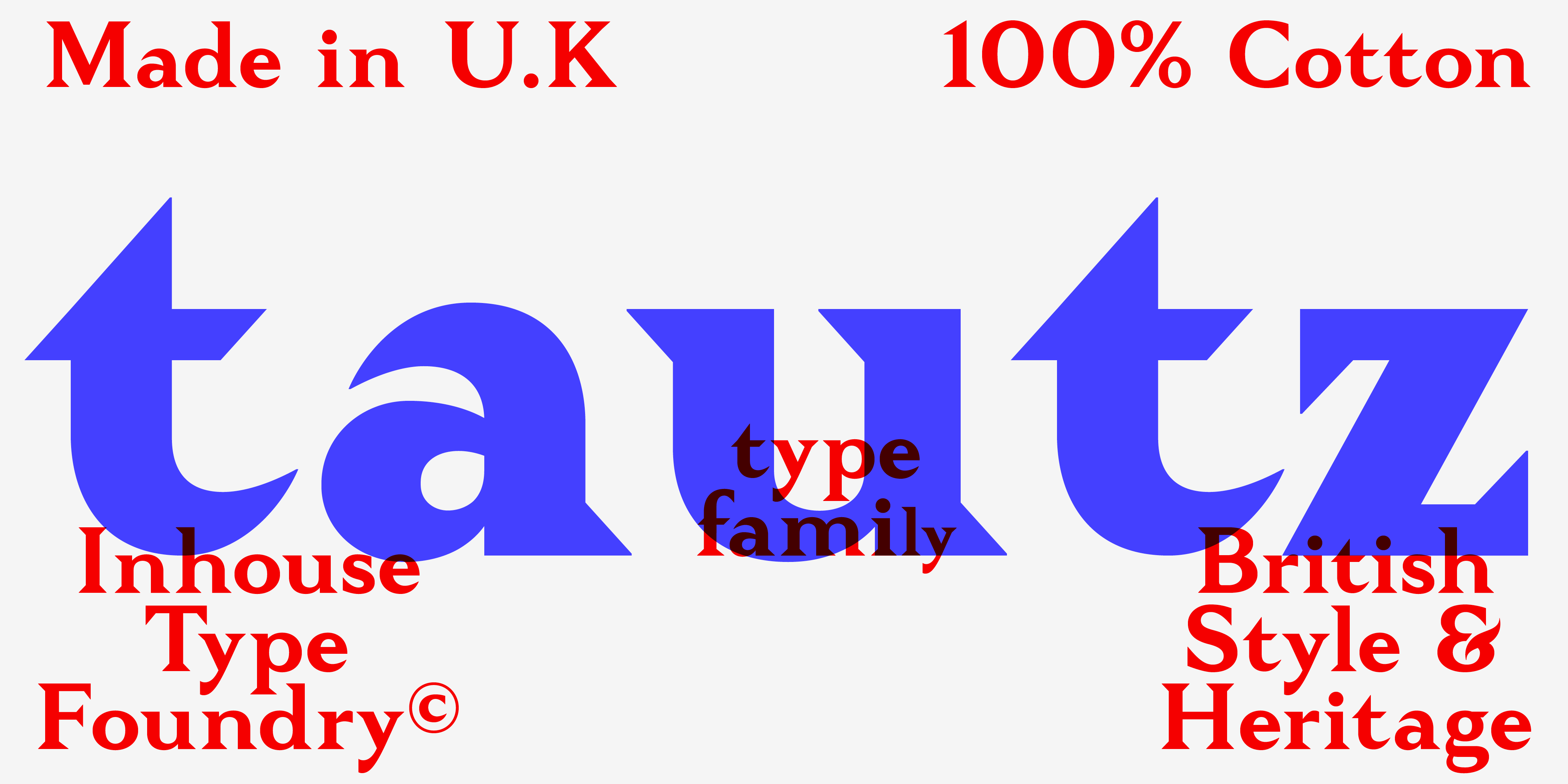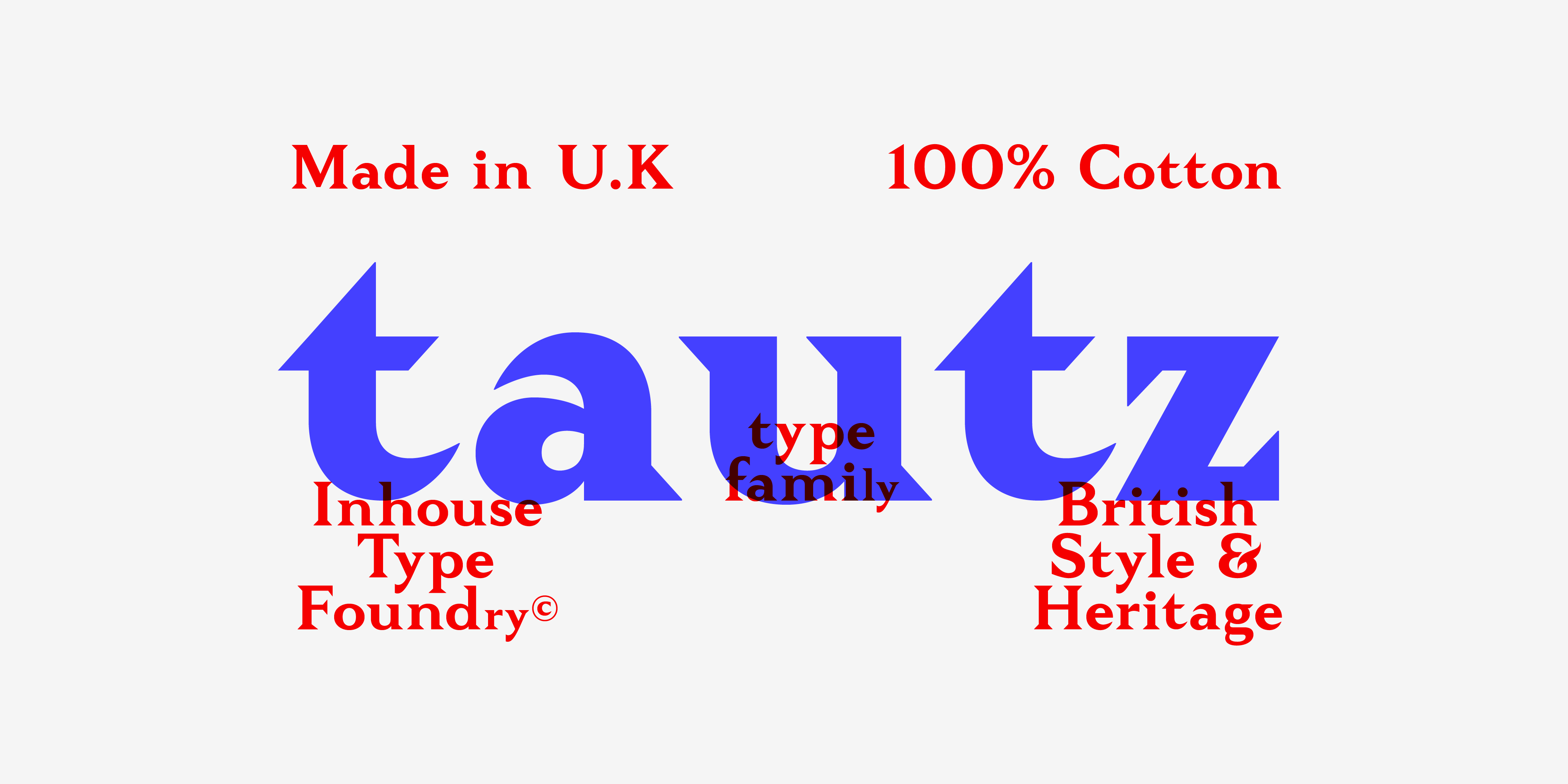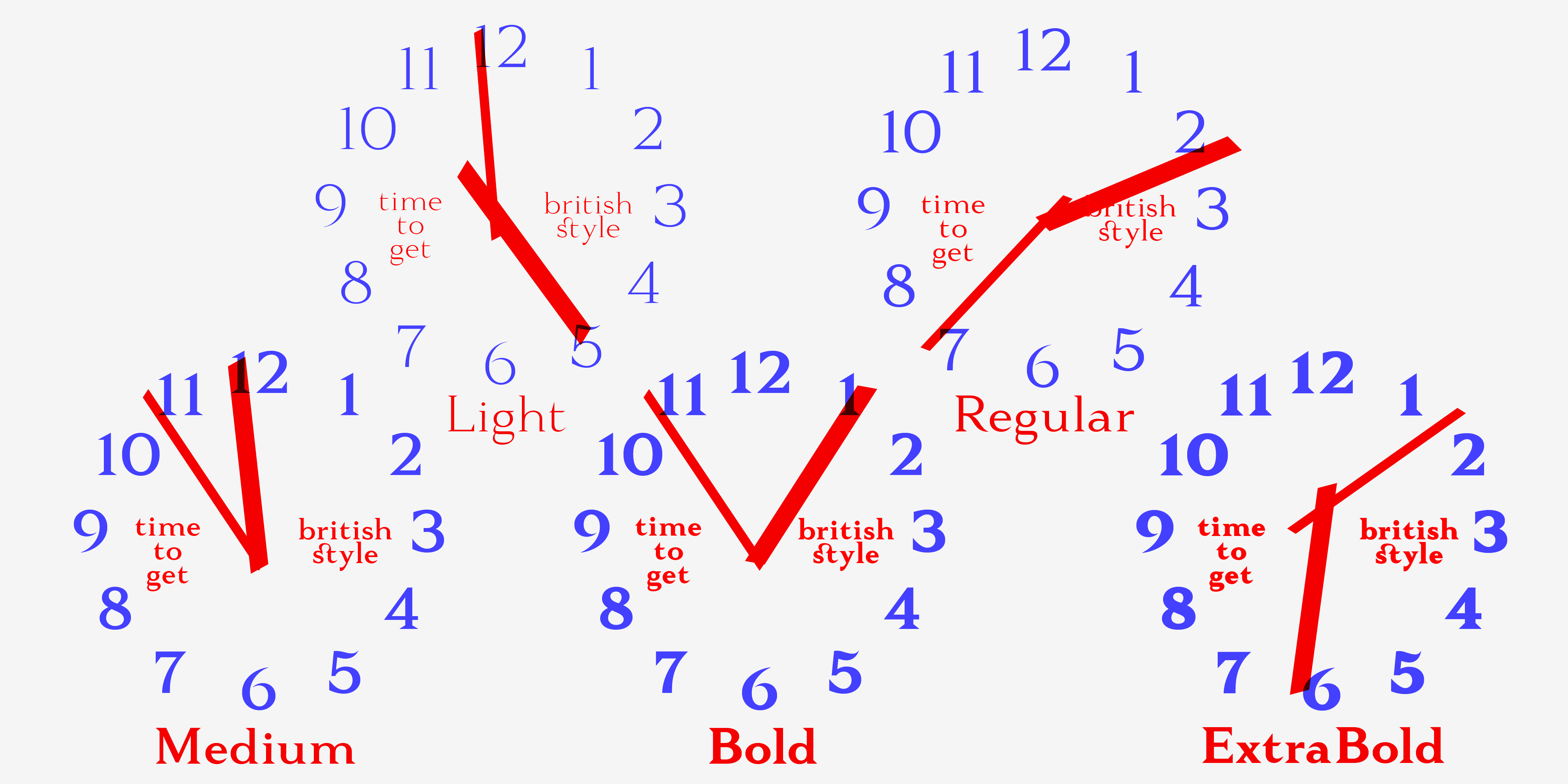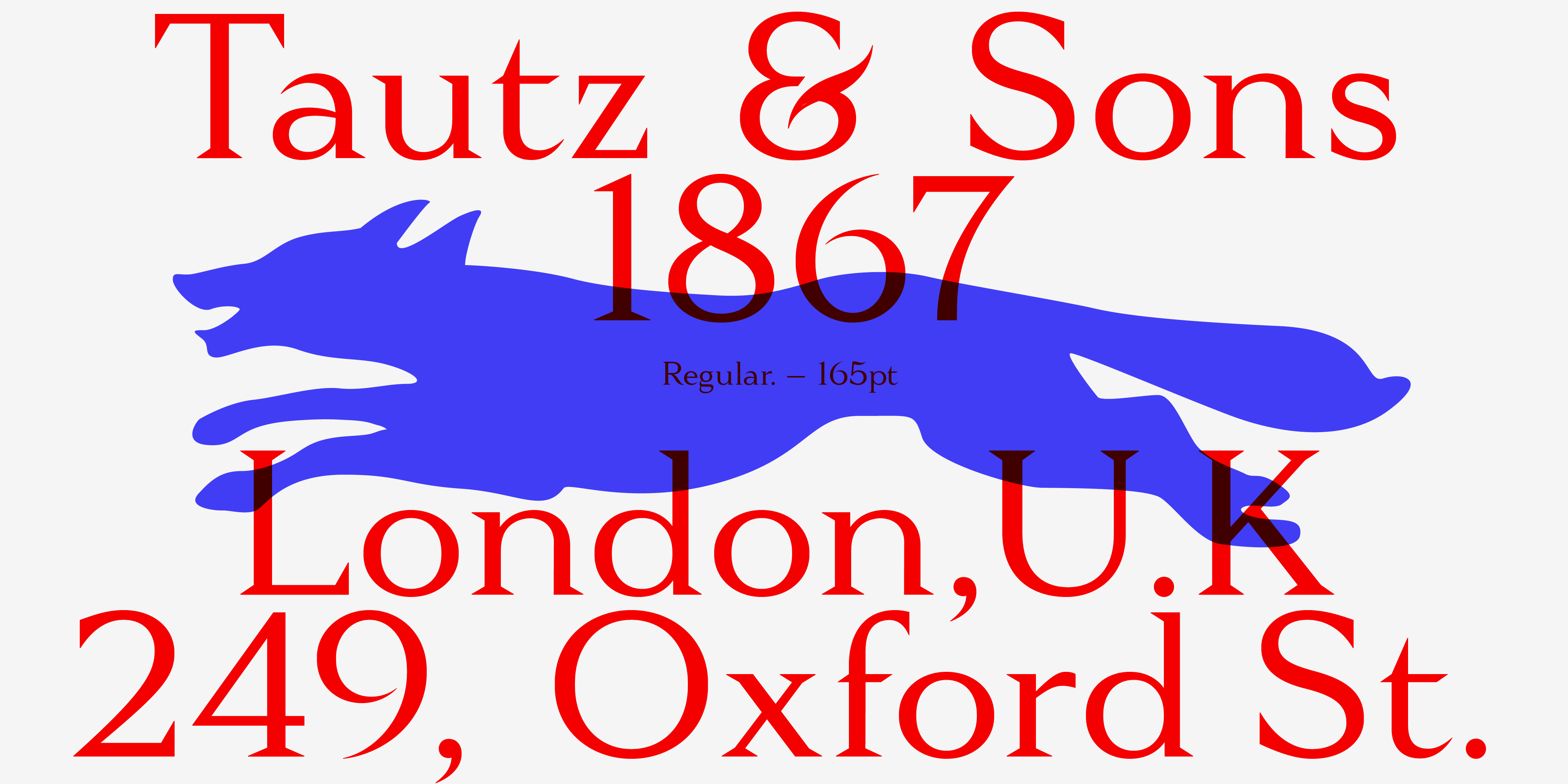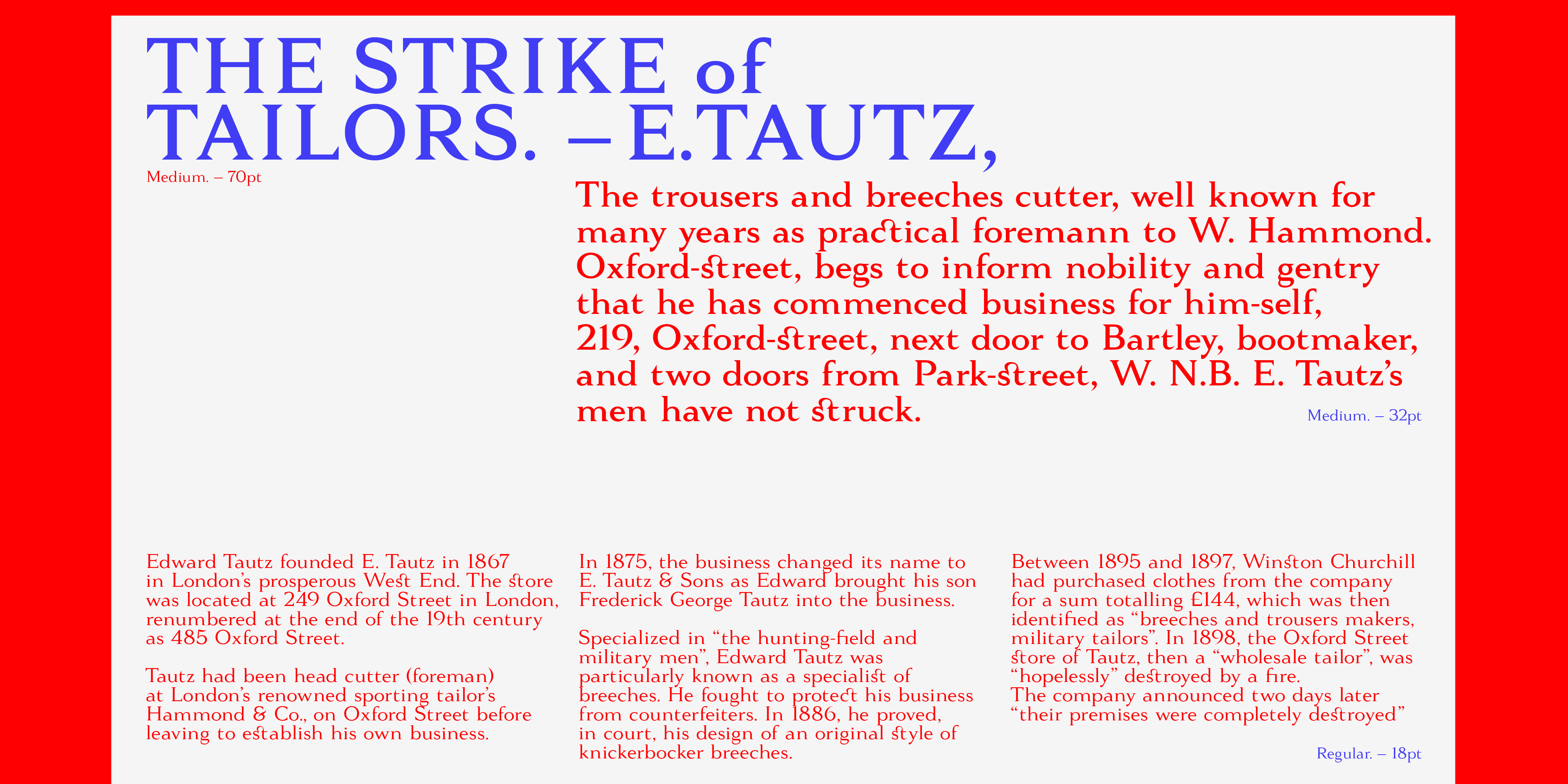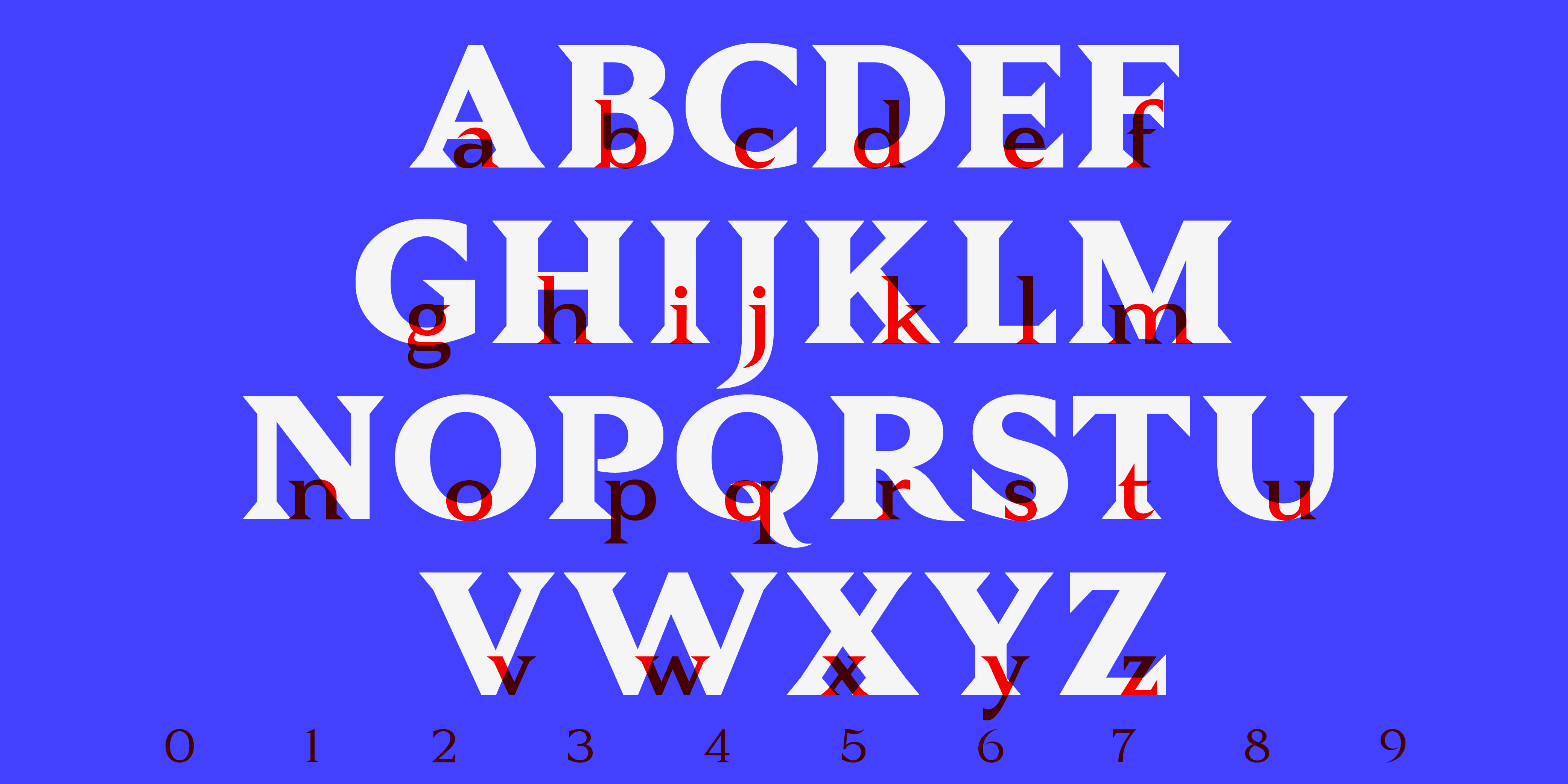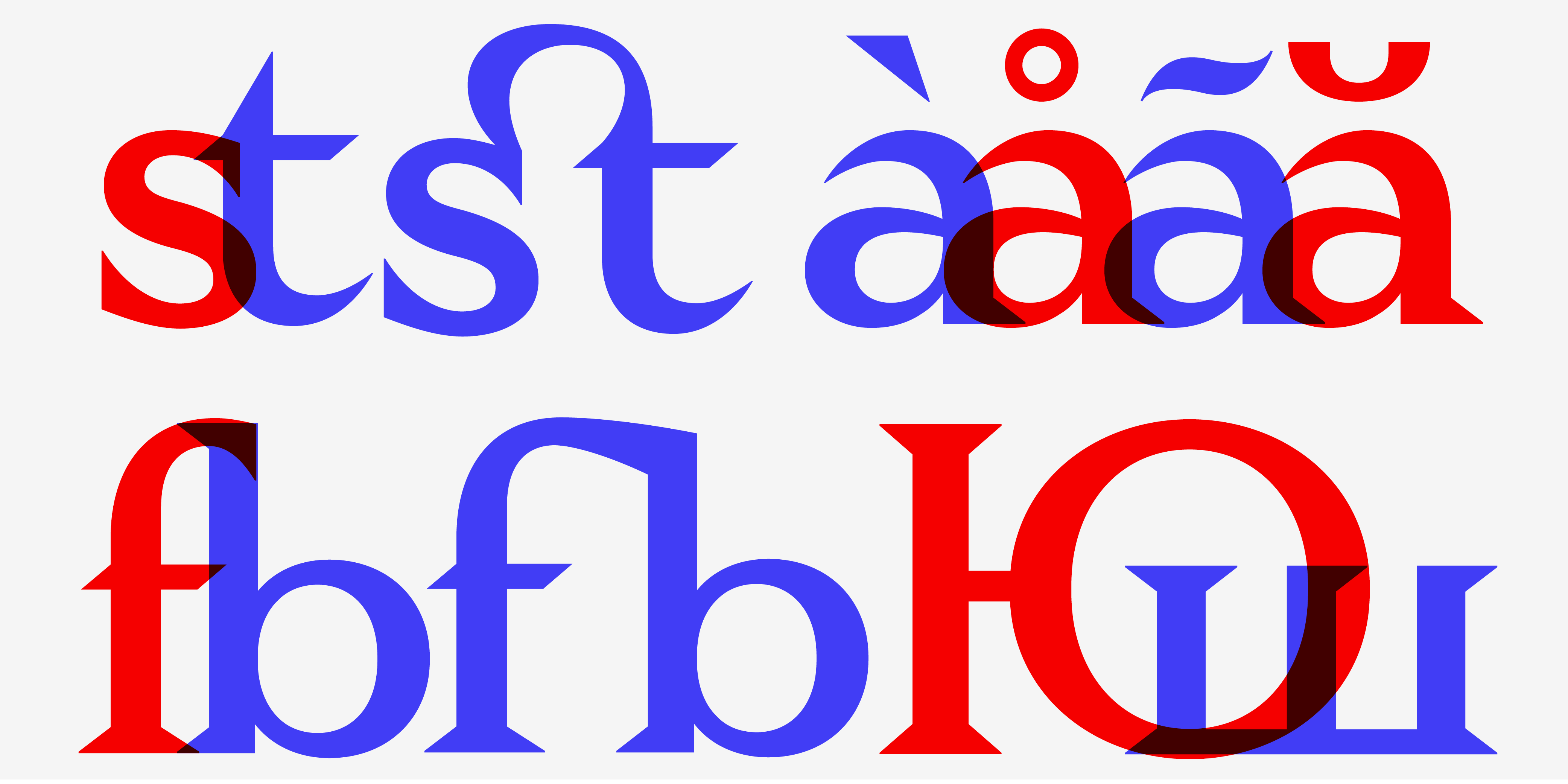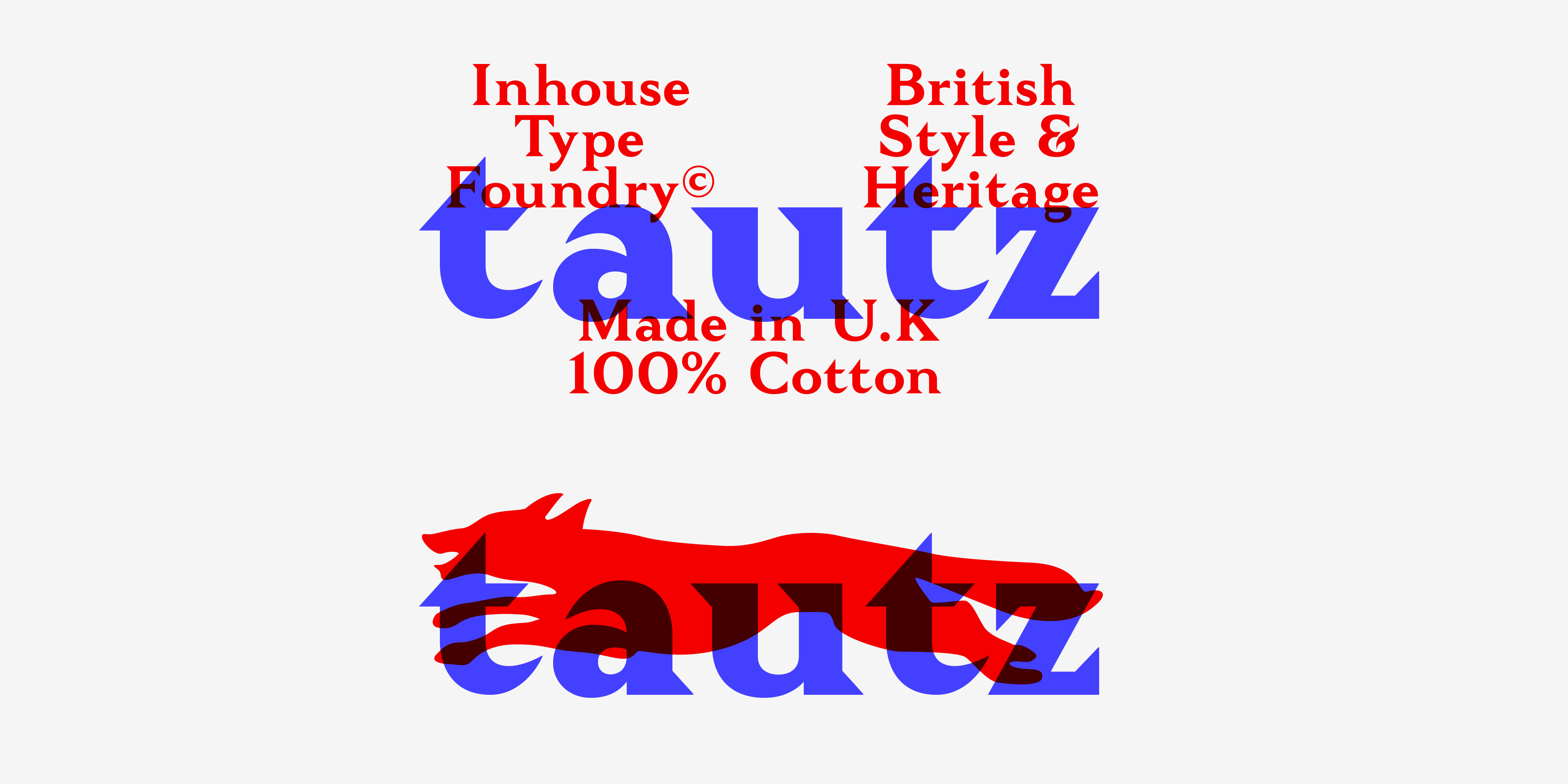
Tautz
About Tautz
A concept driven serif font family of 5 weights. It is a contemporary take on the humanist serif with a touch of rationality and frivolity. Tautz began its life as a research into collective British Style & Heritage, as the pursuit of capturing “Britishness” without falling into the trap of stereotyping. Tautz is a personal reflection of this concept, resulting in a functional & characterful font family. Tautz features lowered x-height with an intention to create tension and resistance on the page or screen for that matter. This counteracts the geometric approach to the glyph construction and the sharpness of serif details. Resulting in a unique typeface that is suitable for text & display. Details include 5 weights, over 470 characters including Cyrillic, ligatures, manually edited kerning and Opentype features.
Discretionary Ligatures
ct
fb
fh
fj
fk
st